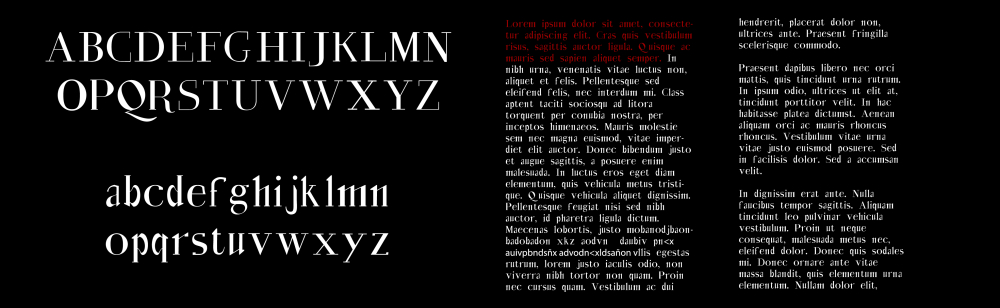
Gothic Exotic
GOTHIC EXOTIC (ver. 1.0)
Exotic Gothic is a gothic Roman typeface with you tear. Hence the name. It is a typeface created from a modular form, which gives it a Gothic look.